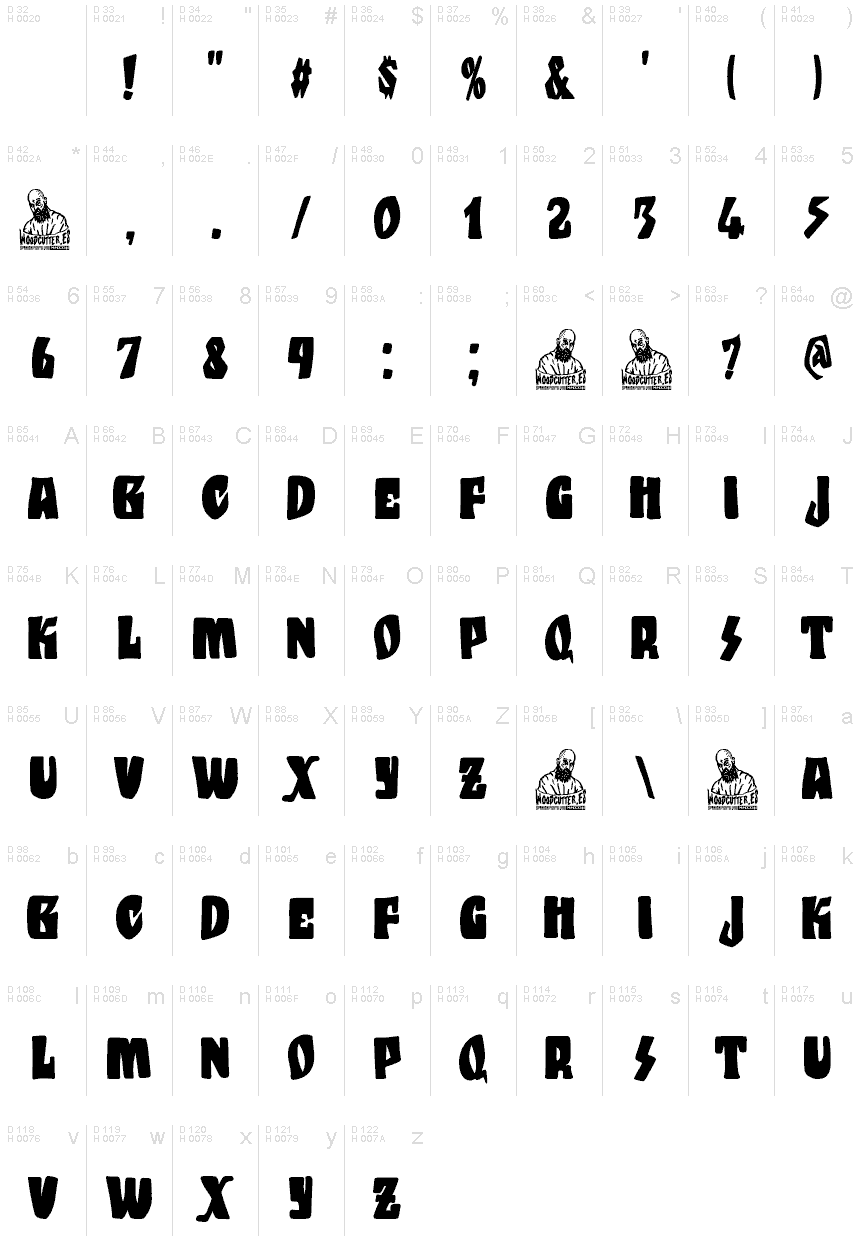
Pitched Battle
Pitched Battle font, designed by Woodcutter, is a grungy, distressed display typeface perfect for designs that need to embody intensity and ruggedness. This bold font features elements of destruction, making it an excellent choice for conveying raw emotions and ideas.
Ideal for apparel design, magazines, book covers, branding projects, packaging design posters, logos, greeting cards and tourist merch items; this free display font will call attention wherever featured.